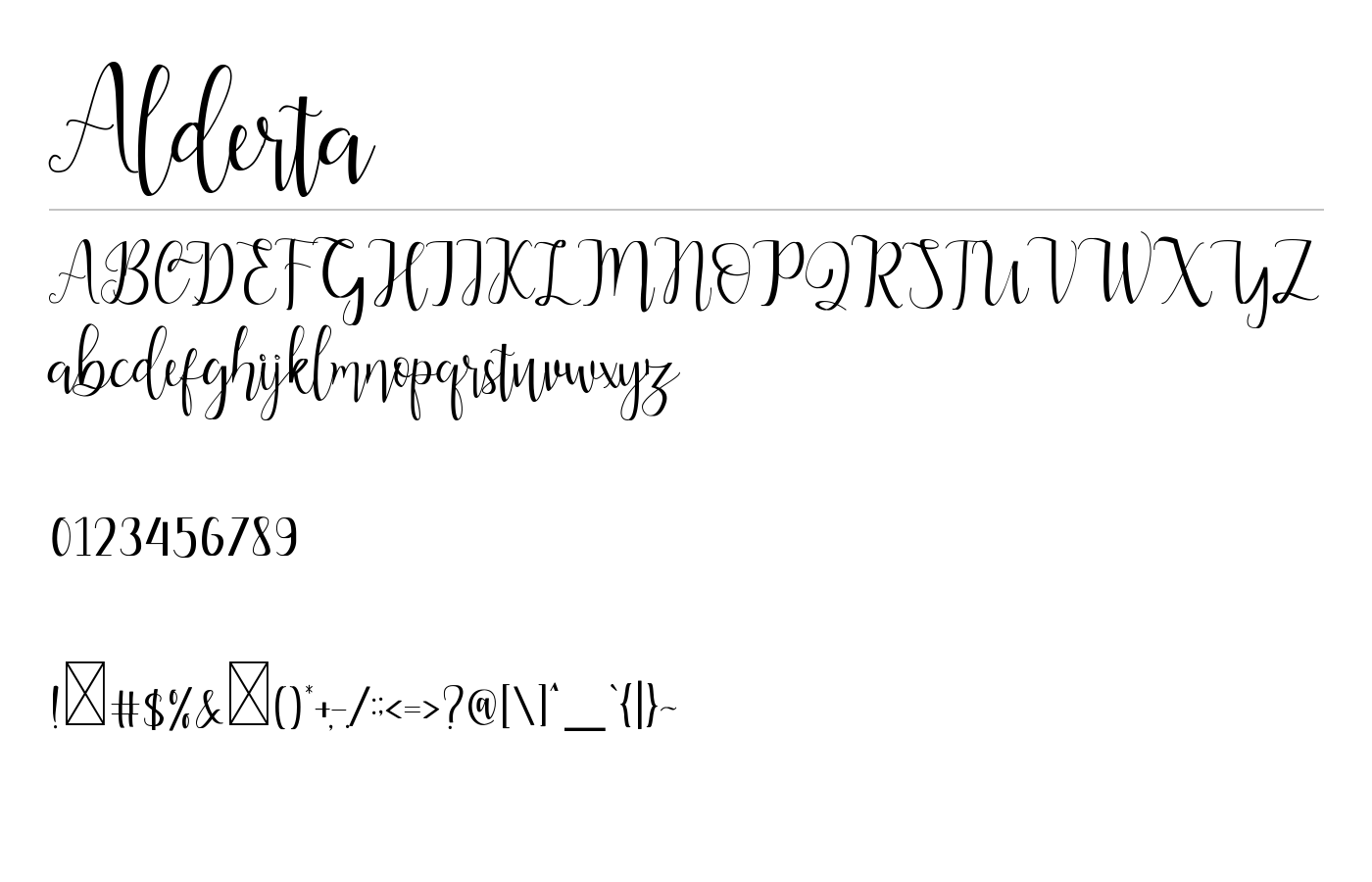
Alderta is an elegant, script-style font featuring delicate, flowing letterforms with a calligraphic touch that evoke a refined and graceful feel. Its slender strokes and decorative swashes make it ideal for sophisticated branding, invitations, and fashion-related designs where a stylish and charming aesthetic is desired. This font works best for headlines and logos, bringing a sense of luxury and artistic flair to any creative project.
Alderta Font
About Alderta Font
| Font family | Alderta Font |
| Designer | FIQIART |